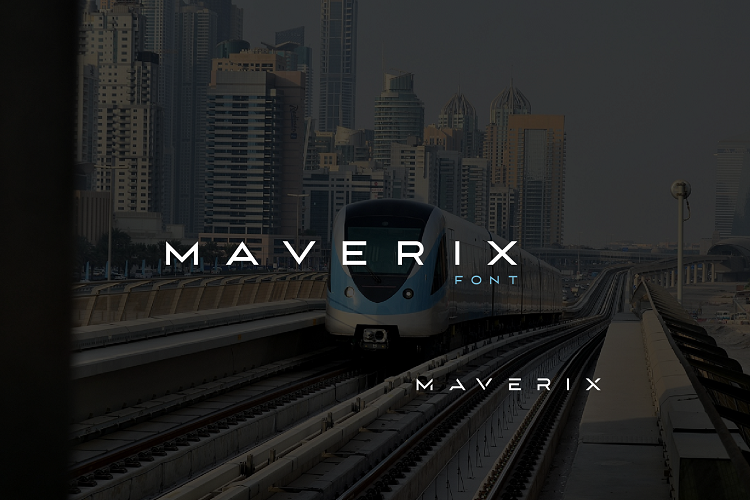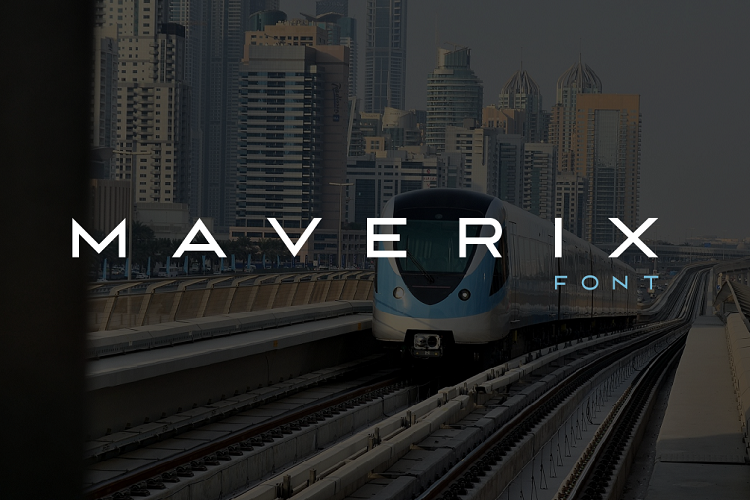
MAVERIX font
MAVERIX FONT – The Essence of Precision and Innovation
Maverix is a modern sans-serif font that merges symmetry with sophistication.
Defined by its proportional elegance and flawless precision, it stands as a true testament to balance in typography.
With two distinct styles — regular and futuristic.